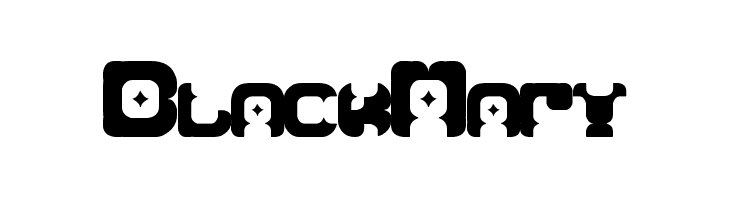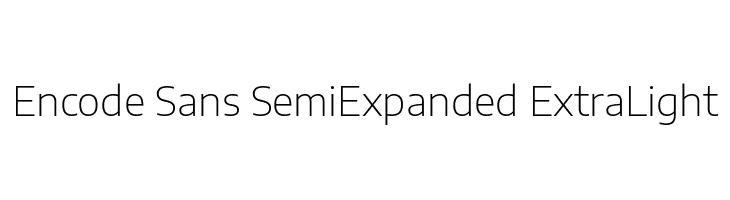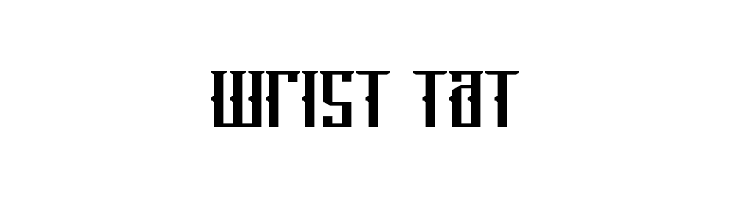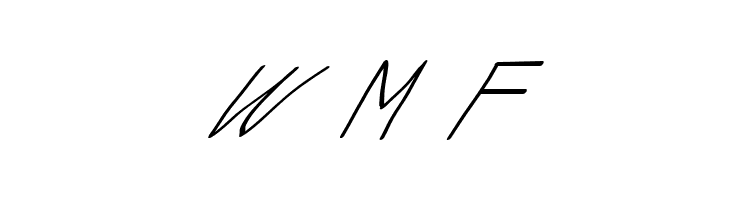
A clean, modern sans-serif font with a semi-expanded, extra-light design.
A bold, angular font with sharp edges and a geometric style.
A bold, angular font with a geometric and modern style.
A lively and expressive handwritten font with fluid, dynamic strokes.
A bold, playful font with rounded characters and unique cut-out details.
A bold, high-contrast serif font with a classic yet modern appeal.
A dynamic script font with sharp, angular strokes and fluid connections.
A playful, decorative font with rounded serifs and dot connections.
A bold, angular, and expanded italic font with a modern, dynamic style.